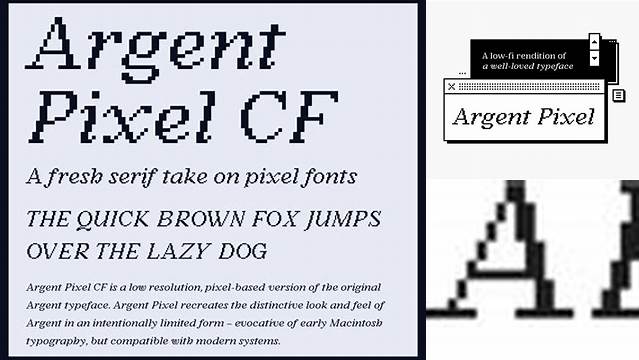
Hey everyone! Today, we're diving deep into the world of the Argent Pixel Font, exploring how you can snag a free download and unleash its potential in your designs. This guide will walk you through everything you need to know, from finding the perfect Argent Pixel font to using it effectively and creatively. Ready to pixelate your projects? Let's get started!
1. What Exactly is the Argent Pixel Font?
Alright, so first things first: what is an Argent Pixel font? Simply put, it's a typeface designed to mimic the look of old-school pixel art. Remember those classic video games and early computer graphics? The Argent Pixel font captures that nostalgic aesthetic, with each letter and number formed by distinct, individual pixels. This style offers a unique, retro vibe that can add a cool and distinctive edge to any project. The beauty of the Argent Pixel font lies in its simplicity. Because each character is built from discrete pixels, the font is instantly recognizable and often evokes feelings of nostalgia for the days of 8-bit gaming and early digital art. There are different variations of the Argent Pixel font, ranging in pixel density and style, allowing you to fine-tune the look to match your project's needs. Some are bold and chunky, reminiscent of arcade game titles, while others are more refined, offering a cleaner, more modern pixelated aesthetic. This versatility makes the Argent Pixel font a fantastic choice for a wide range of applications. Think of it like this: It's like giving your designs a digital makeover, transporting them back to the golden age of computing while still keeping them relevant and eye-catching for today’s audience. The Argent Pixel font also presents a refreshing contrast to the sleek, modern fonts that we are often used to, making it the perfect way to add a touch of personality to your work.
And because we're talking about design, remember that fonts are essential building blocks in design. So, if you're looking to make your digital projects, or even your printed ones, unique and memorable, Argent Pixel fonts are a way to go. They are a fantastic option for creating visually striking content, but do remember that its effectiveness is largely dependent on the project's overall design. Properly implementing it will make your project stand out from the crowd. Think of it as a secret weapon in your design arsenal that can bring a different and fun perspective to your work. Using the Argent Pixel font enables you to create a connection between the past and the future. It also opens the door to endless creative opportunities. Are you ready to incorporate this font and its possibilities into your design? Because I know I am!
3. Argent Pixel Font Styles: Exploring the Variations
So, you're ready to dive in, but first, it's important to understand that not all Argent Pixel fonts are created equal. There are numerous styles and variations to choose from, each with its unique characteristics. Let's explore some of the most common types you'll encounter. You'll find fonts with different pixel densities, from low-resolution, chunky styles that resemble the graphics of early video games, to higher-resolution fonts with finer pixel detail. The lower-resolution fonts are perfect for creating that classic retro look, while the higher-resolution ones can be used in more modern designs. Some Argent Pixel fonts feature a clean, geometric design, with perfectly aligned pixels that create a crisp, structured appearance. Others have a more irregular, hand-drawn feel, with slightly uneven pixels that add character and personality. Then, there's the width of the font. Some fonts are monospaced, where each character has the same width. These are great for coding or for when you need a consistent spacing. Others are proportional, where characters have varying widths, which can be more aesthetically pleasing in certain designs. Another key aspect to consider is the font's weight. You'll find Argent Pixel fonts in various weights, from light and delicate to bold and heavy. The weight you choose will depend on the desired impact of your text. When it comes to the overall style, you will find fonts that lean towards a futuristic, sci-fi aesthetic, while others embrace a more retro, arcade-game vibe. Some incorporate special effects, such as outlines, shadows, or 3D-style rendering, adding another layer of visual interest. It's also worth looking for fonts with specific character sets that include the symbols and special characters you need. Many Argent Pixel fonts include the standard alphabet, numbers, and basic punctuation, but some may offer extended character sets to meet the needs of different languages or design projects. In summary, when choosing an Argent Pixel font, think about your project's overall aesthetic, the level of detail you want, and the characters you need. Now, let's explore the styles and variations of the Argent Pixel font and choose the perfect one!